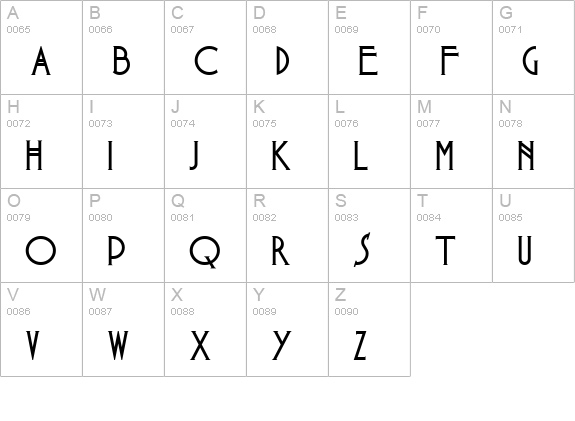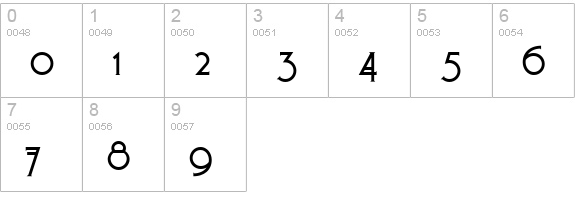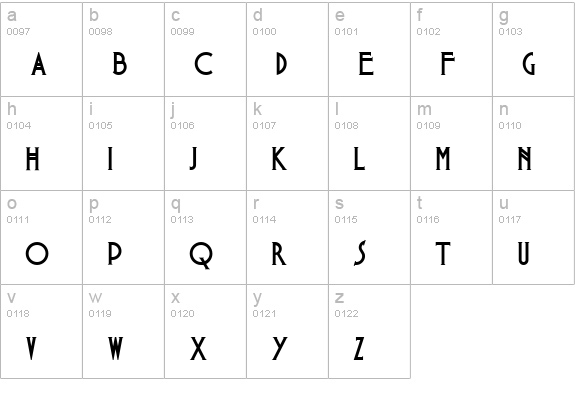
Babes In Toyland NF font is a whimsical and playful typeface that captures the spirit of childhood imagination and wonder. With its charming and rounded letterforms, this font brings a sense of joy and nostalgia to any design project. Perfect for creating eye-catching titles, headlines, and logos, Babes In Toyland NF font adds a touch of enchantment to your designs. Whether you're working on a children's book cover, a toy packaging design, or a playful website, this font will instantly captivate your audience and transport them to a world of fun and imagination. What makes Babes In Toyland NF font even more appealing is that it is freely available to download at FontsMarket.com. You can easily access this delightful font and incorporate it into your projects without any cost. Embrace the spirit of creativity and let your designs come to life with the whimsical charm of Babes In Toyland NF font. So why wait? Unlock the magic of this font and let your imagination run wild. Download Babes In Toyland NF font for free at FontsMarket.com and add a touch of playful charm to your designs today.